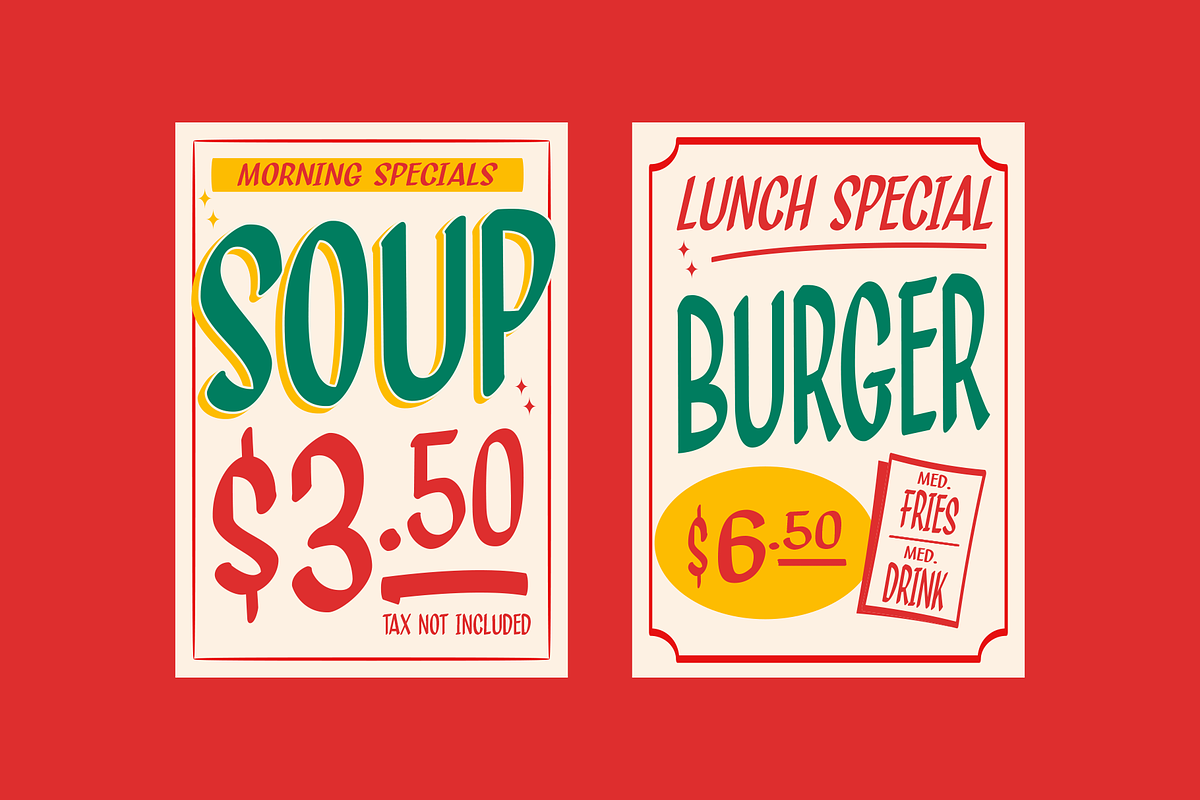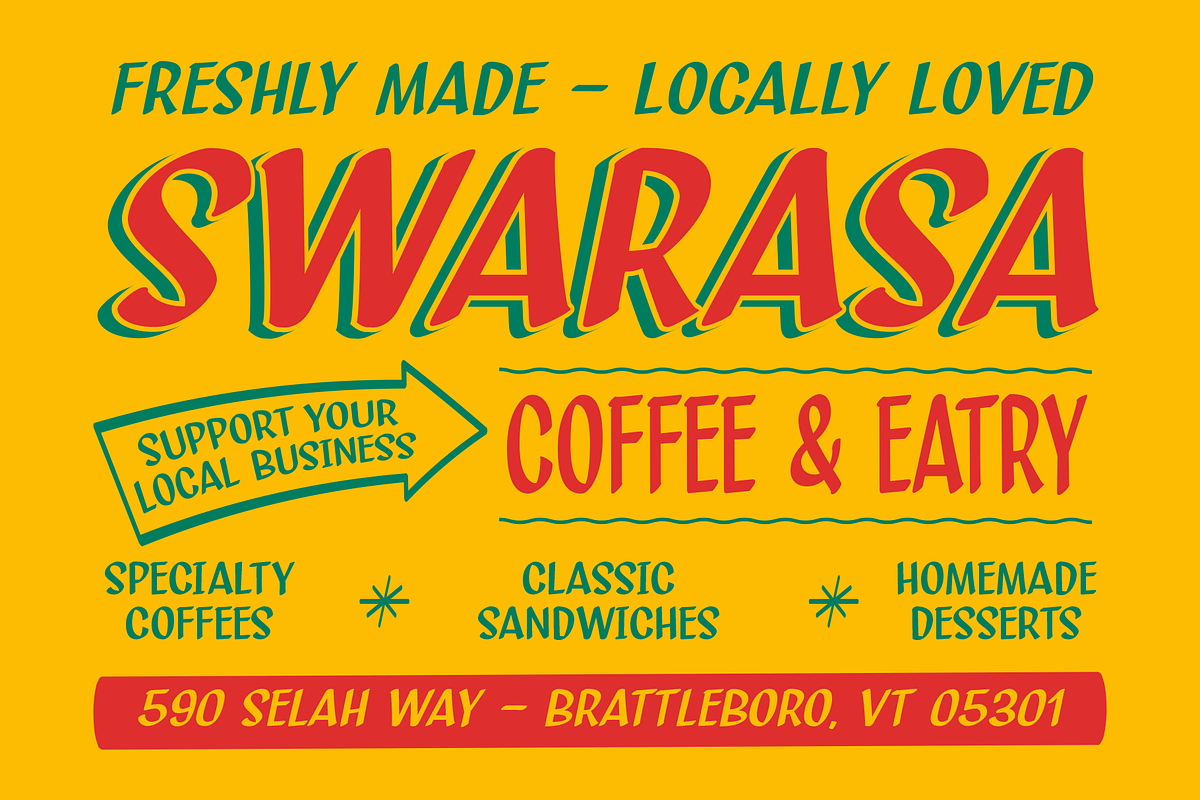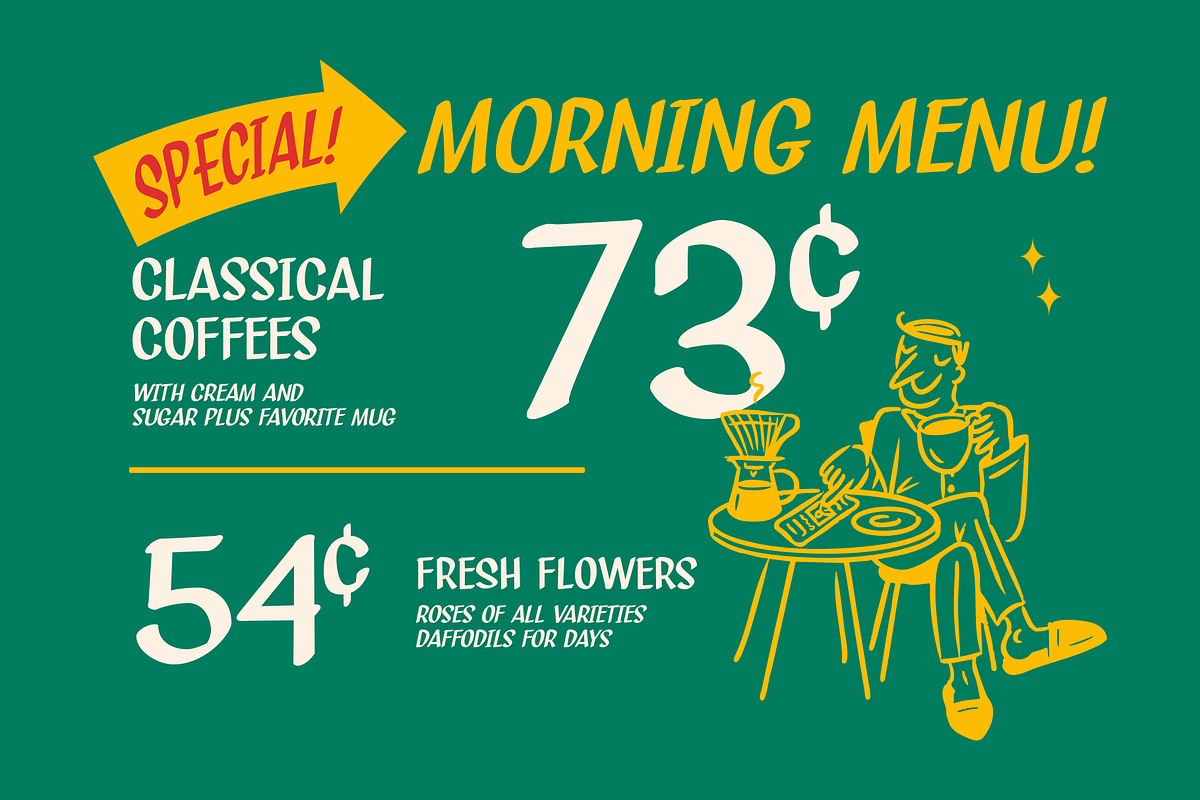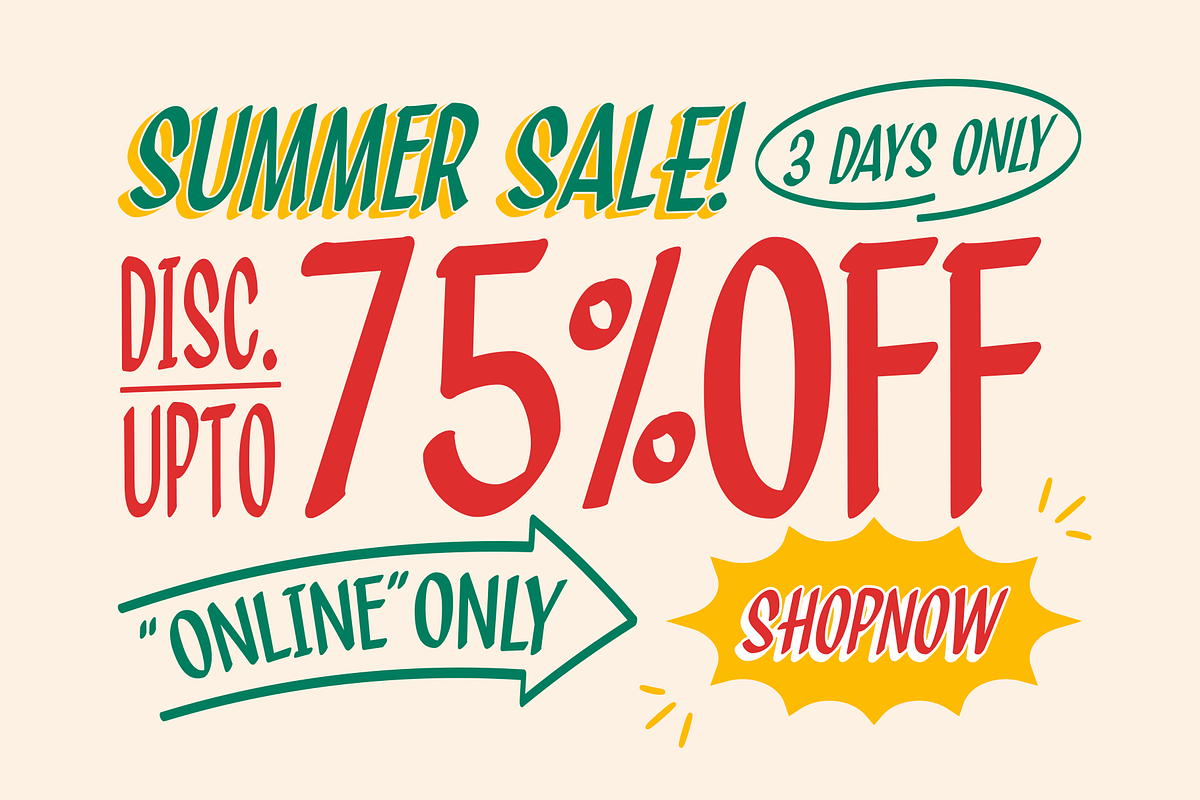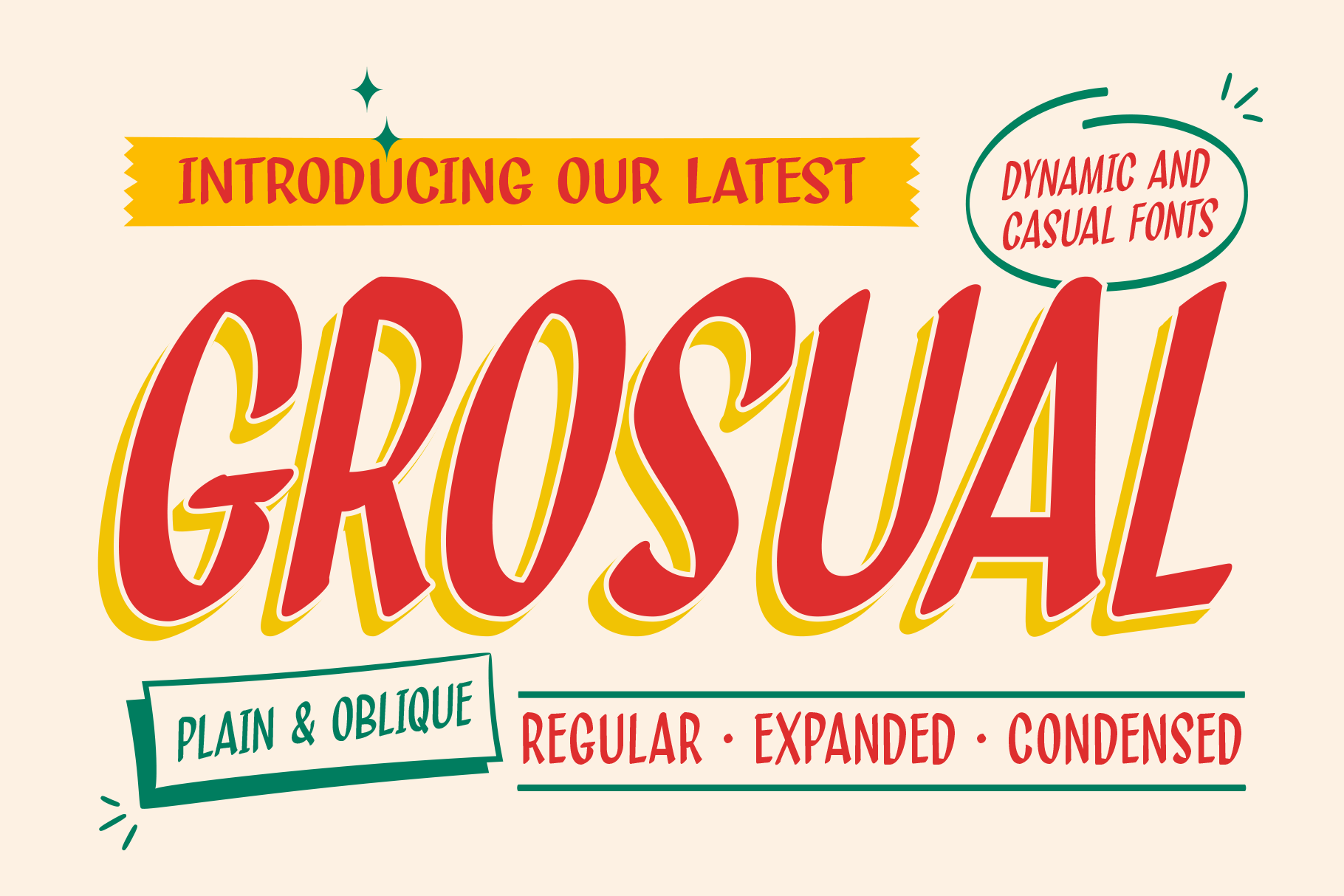
Grosual - Casual Display Font
GROSUAL — Dynamic & Casual Display Font
Meet GROSUAL, a bold and expressive display font designed to bring a dynamic, playful, and handcrafted personality to your designs.
With its energetic letterforms, organic curves, and casual hand-drawn character, GROSL is perfect for projects that need a strong visual presence while keeping a fun and approachable feel.
GROSUALL comes with multiple styles, giving you the flexibility to create different compositions and typographic treatments. Use the bold Regular style for attention-grabbing headlines, the Expanded style for a wider and more impactful look, or the Condensed style when you need a compact yet powerful statement.
GROSUAL works especially well for bold headlines, short phrases, logos, and eye-catching display text. Its distinctive hand-crafted appearance adds personality and movement to both modern and retro-inspired designs.
Whether you're creating a playful brand identity, an expressive poster, or a statement piece for apparel, GROSUAL is made to stand out.